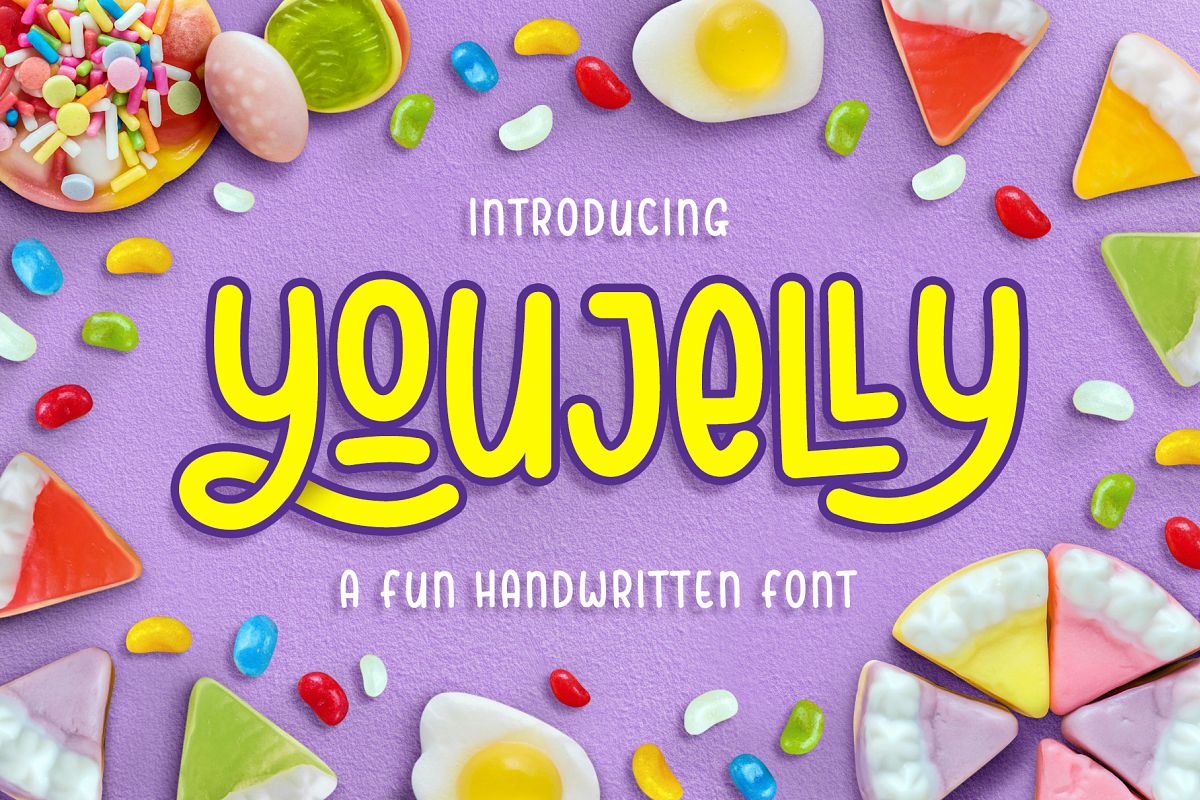
Youjelly - A Fun Handwritten Font
Youjelly
Youjelly is a fun handwritten font and perfect for many different project such a cover book children, text book children, subtitle songs, quotes, logos & branding, social media posts, watermark, stationery, label, clothing and much more.
Youjelly - A Fun Handwritten Font